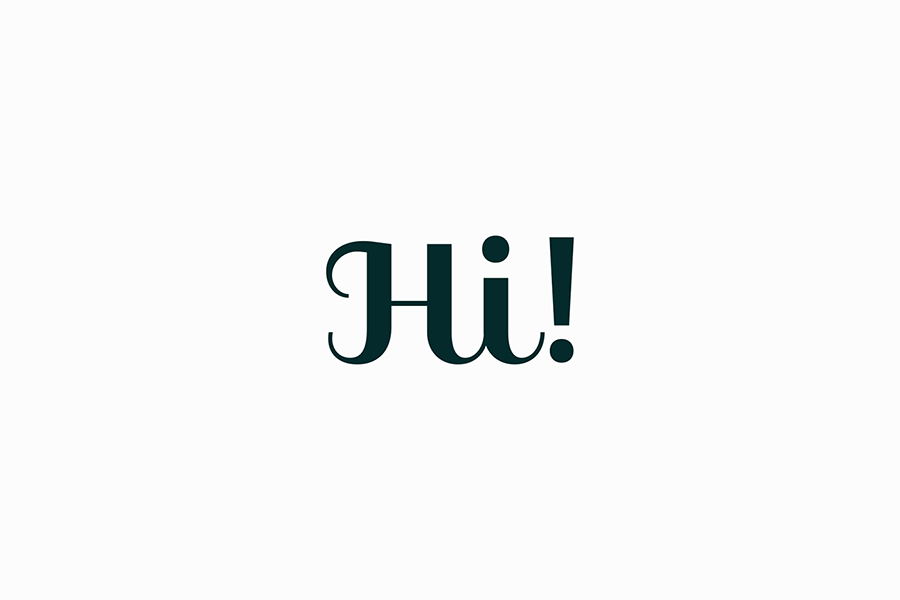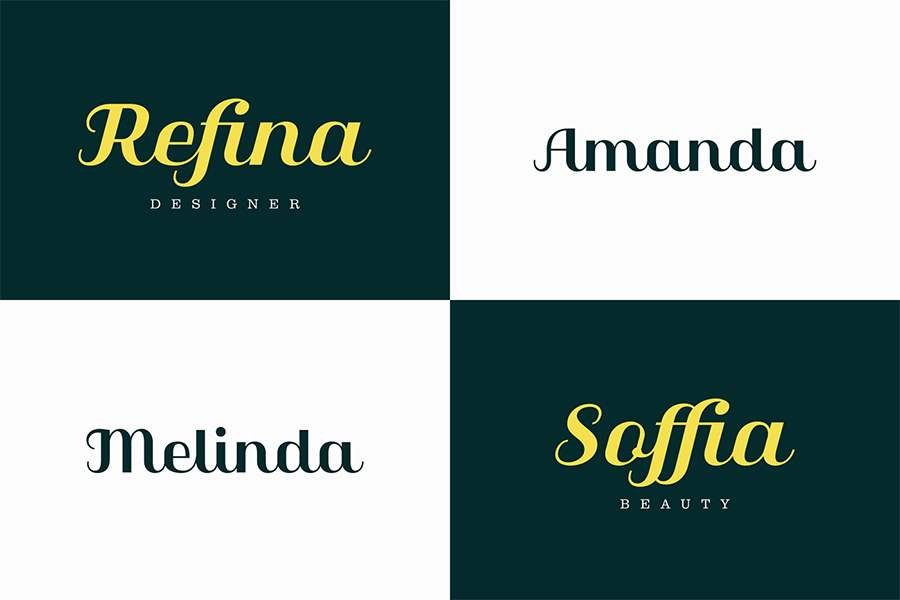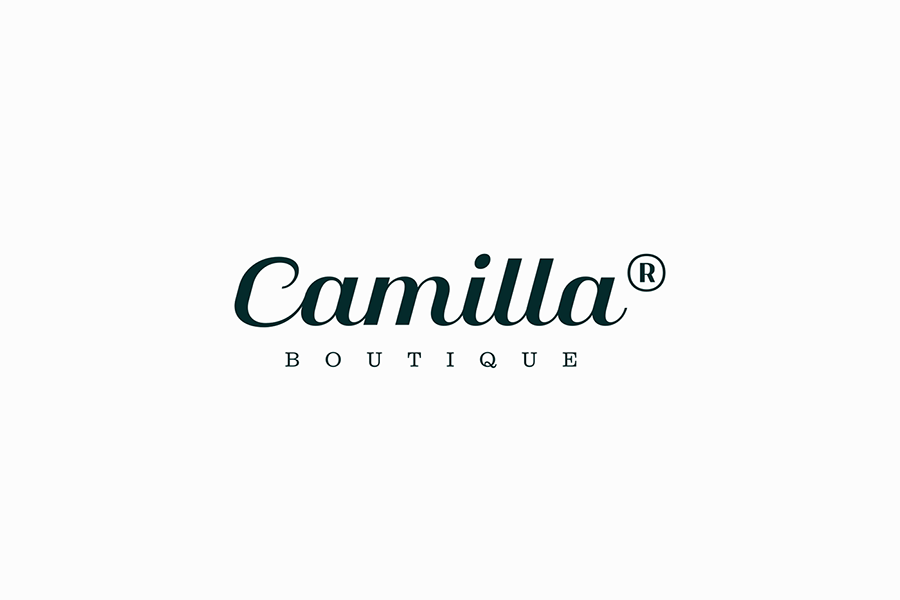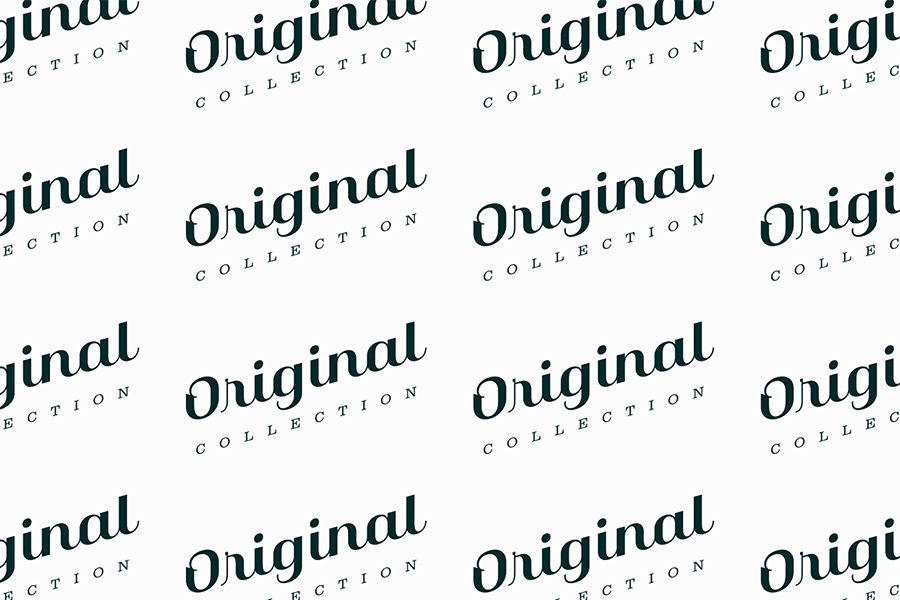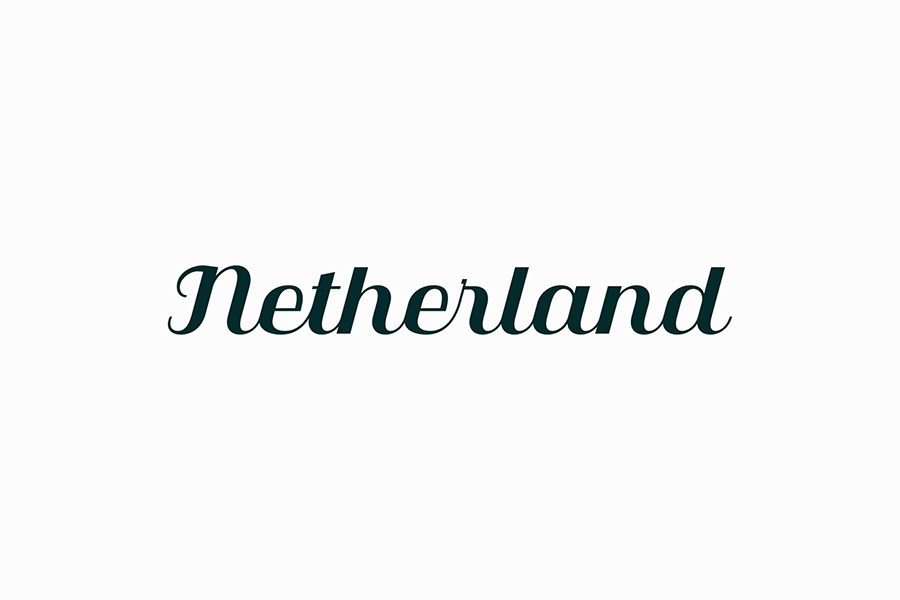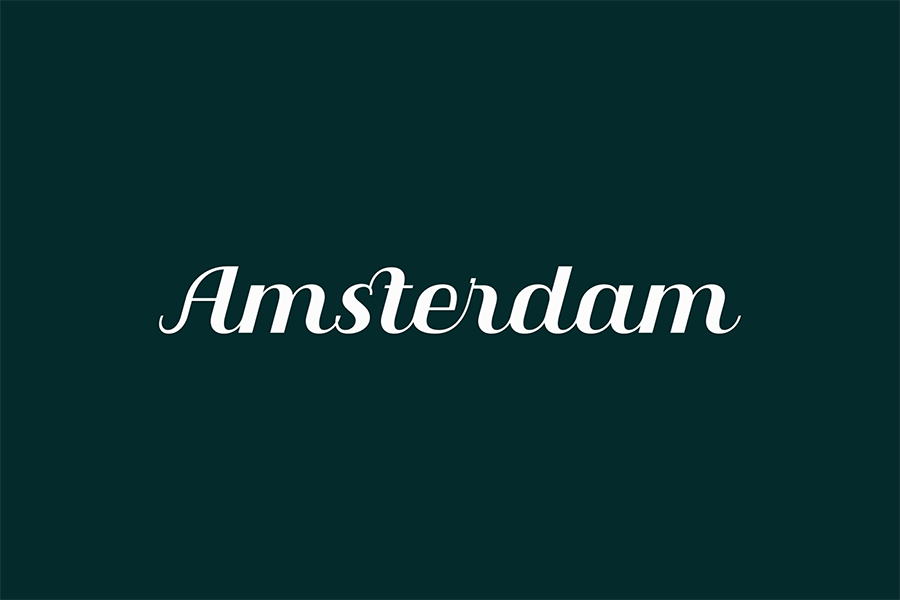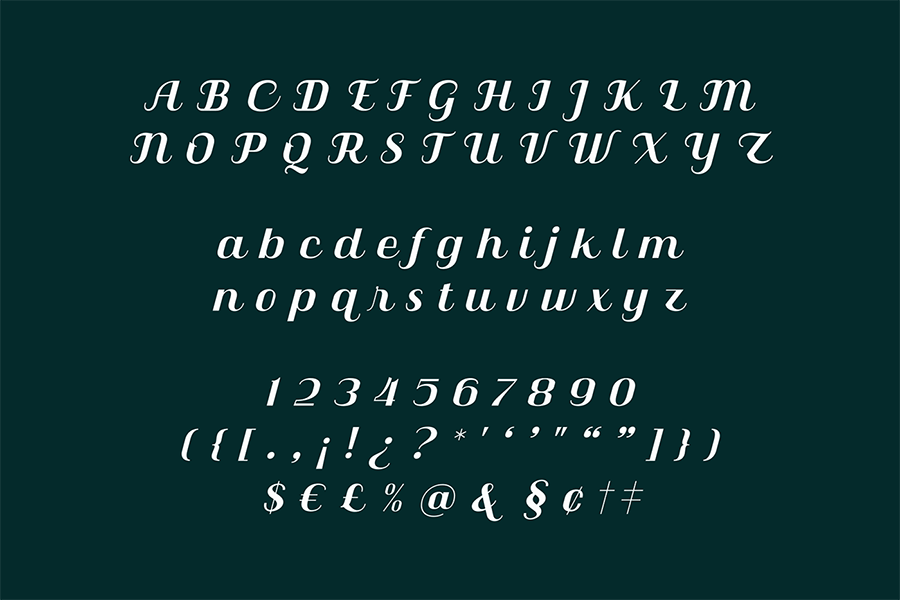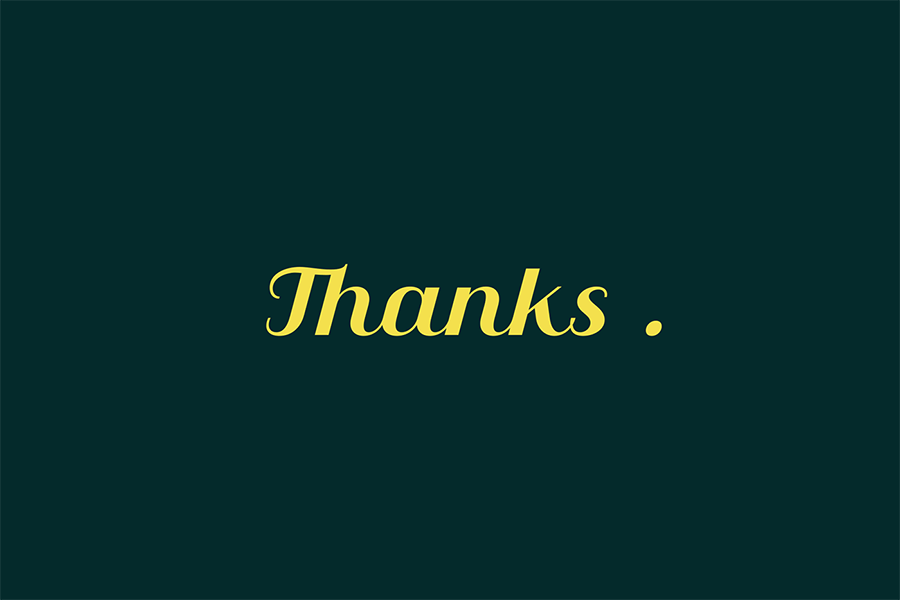
Qilla Serif Font Free Demo
Qilla Serif Font Free Demo is the trial version of a simple and elegant font by Herlan for your projects. This classy font can be useful for various purposes, such as headings, logos, wedding invitation, t-shirt, letterhead, signage, labels, posters, badges etc. Also, Qilla comes with two styles, upright and slanted versions that can be an alternative choice to suit your needs. This time you’ll get to try the slanted one! So, if you like it, leave comments below.